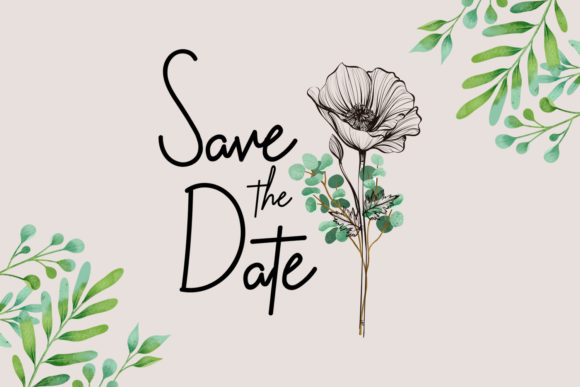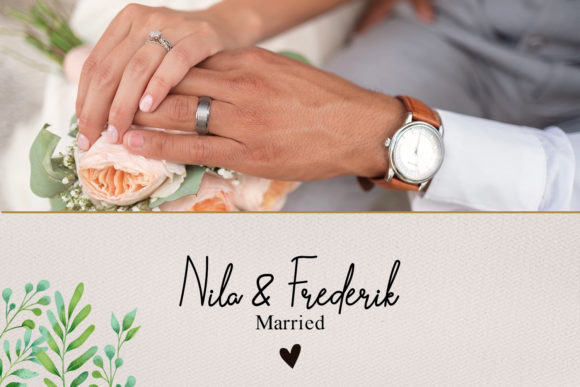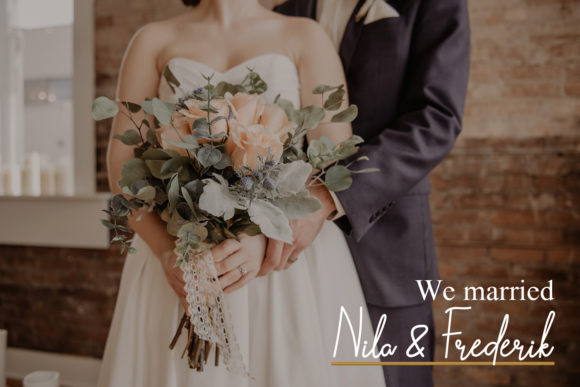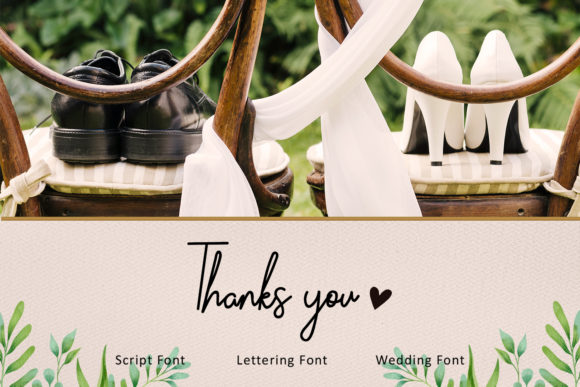
Introduction to Ningtawang Font
Have you ever stared at a blank page, trying to find the perfect font to bring your creative project to life? That moment of frustration is a familiar one for many designers. But what if you stumbled upon a font that not only solves the problem but elevates your design to new heights? Enter the Ningtawang Font, a natural and elegant handwritten font that’s about to become your new design best friend.
With its smooth lines, beautiful glyphs, and stunning alternative, the Ningtawang Font is the perfect addition to any design resource. Whether you’re working on a high-quality brochure, a website with a transparent background, or a creative project that needs a touch of sophistication, this font has got you covered.
Key Features of Ningtawang Font
- High-quality design resource ideal for creative projects, offering a unique and elegant style.
- Comes with a transparent background, making it perfect for overlaying on images or videos.
- Font size: 256 glyphs, covering a wide range of languages and characters.
- Resolution: Optimized for high-resolution displays, ensuring crisp and clear text even at large sizes.
- Unique characteristics include intricate details and a delicate balance of curves and lines, making it suitable for various design applications.
Honest Review: Ningtawang Font
I recently stumbled upon the Ningtawang Font and I must say, it’s a gem for designers. As a design enthusiast, I appreciate the efforts of creators who share their high-quality resources for free. The Ningtawang Font is no exception.
What works well for this font is its versatility. It’s perfect for creative projects that require a unique touch. The font is available for free download, making it an excellent resource for designers who are on a budget or just starting out.
Here are some of the features I like about the Ningtawang Font:
- Works well with transparent backgrounds, giving it a modern touch
- ⚠️ Limited font styles and weights, which may not be ideal for complex designs
- ⚠️ Some users may find the font a bit too quirky for more formal projects
Overall, I’m impressed with the Ningtawang Font. It’s a great resource for designers who want to add a unique touch to their projects. While it has its limitations, it’s a high-quality font that’s definitely worth checking out.
Ningtawang Font is a high-quality, creative project resource that can elevate your designs to the next level. With its unique design and transparent background, it’s perfect for designers looking for a versatile font to use in their projects.
Tips for Getting the Most Out of Ningtawang Font
To get the most out of Ningtawang Font, try experimenting with different font sizes, colors, and combinations to create unique and eye-catching designs.
Ningtawang Font is perfect for a variety of creative projects, including:
- Banner design
- Infographic design
Alternatives to Ningtawang Font
The Great Vibes Font is a high-quality, elegant script font ideal for creative projects, wedding invitations, and other design resources. It features a transparent background and is available for free download.
Compared to Ningtawang Font, Great Vibes Font offers a more classic and sophisticated look, making it perfect for projects that require a touch of elegance.